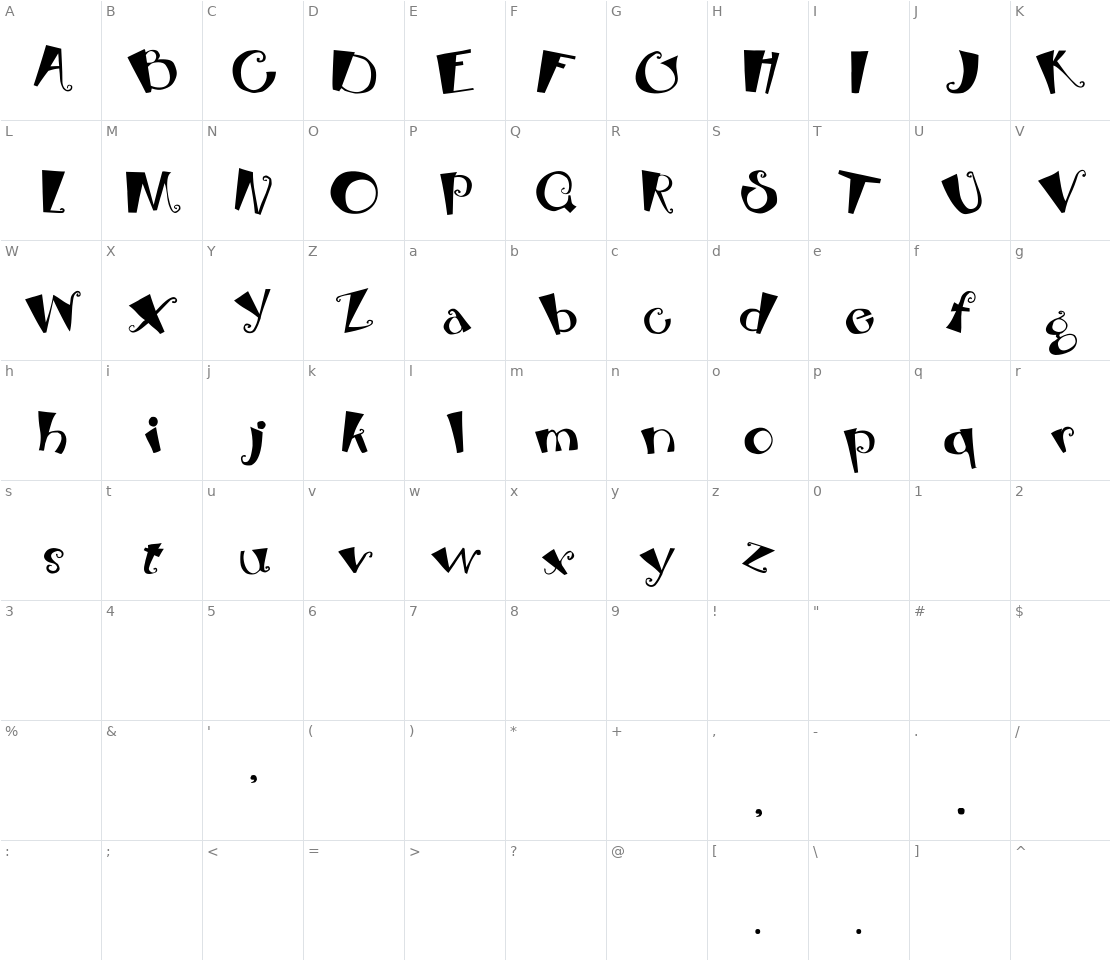
Beebop
by Laurie McCanna
Beebop is a curvy, bold display face from Laurie McCanna with a retro personality that feels like hand-painted signage from a mid-century diner or record shop. The letterforms are quirky and playful, with rounded strokes and unexpected proportions that keep things visually interesting without losing readability at headline sizes. It works best on posters, packaging, and branding where you want something with genuine character and a little bit of swing.